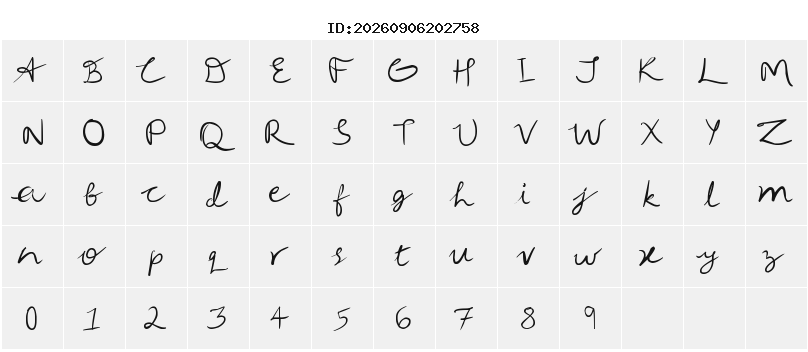
ugran Preview
• Font Name: ugran
• Designer: Ajith Rajan
• Description: "Ugran" is the Malayam word for "Superb". This is a handwritten font, by Ajith Rajan. Visit http://artvsaccounting.tk/fonts for more free fonts and for license information.
About ugran.ttf